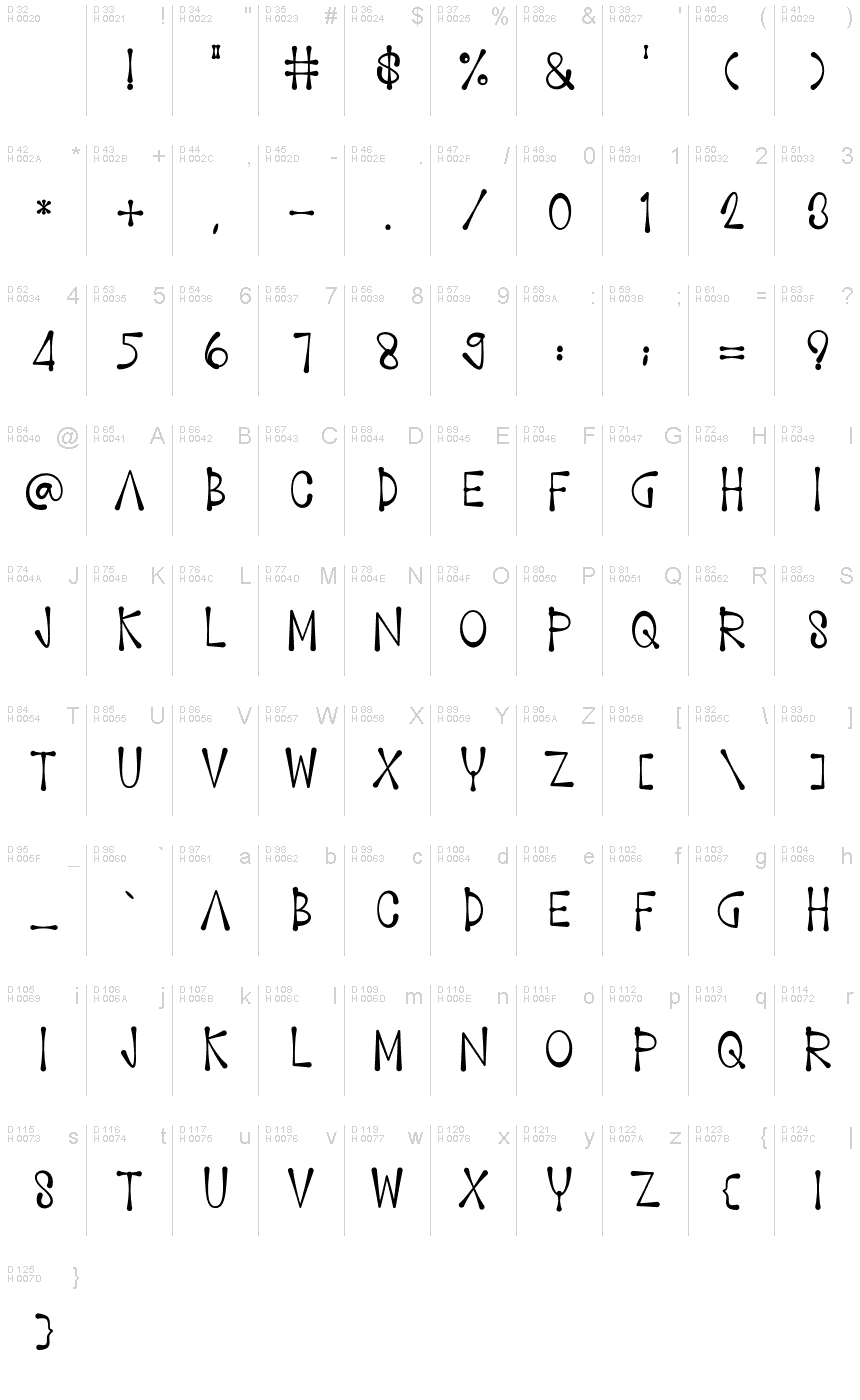
Magic Boho
Magic Boho, designed by Al Ghul, is a captivating semi-light font that exudes an enchanting charm. With its cute display style, this font adds a whimsical touch to any project. Perfect for children's books, greeting cards, and party invitations, Magic Boho immerses readers in a world of magic and wonder. Its delicate strokes and playful curves make it ideal for crafting eye-catching logos or creating captivating social media graphics that stand out from the crowd. Let your imagination run wild with Magic Boho as it infuses your projects with a touch of delightful enchantment.